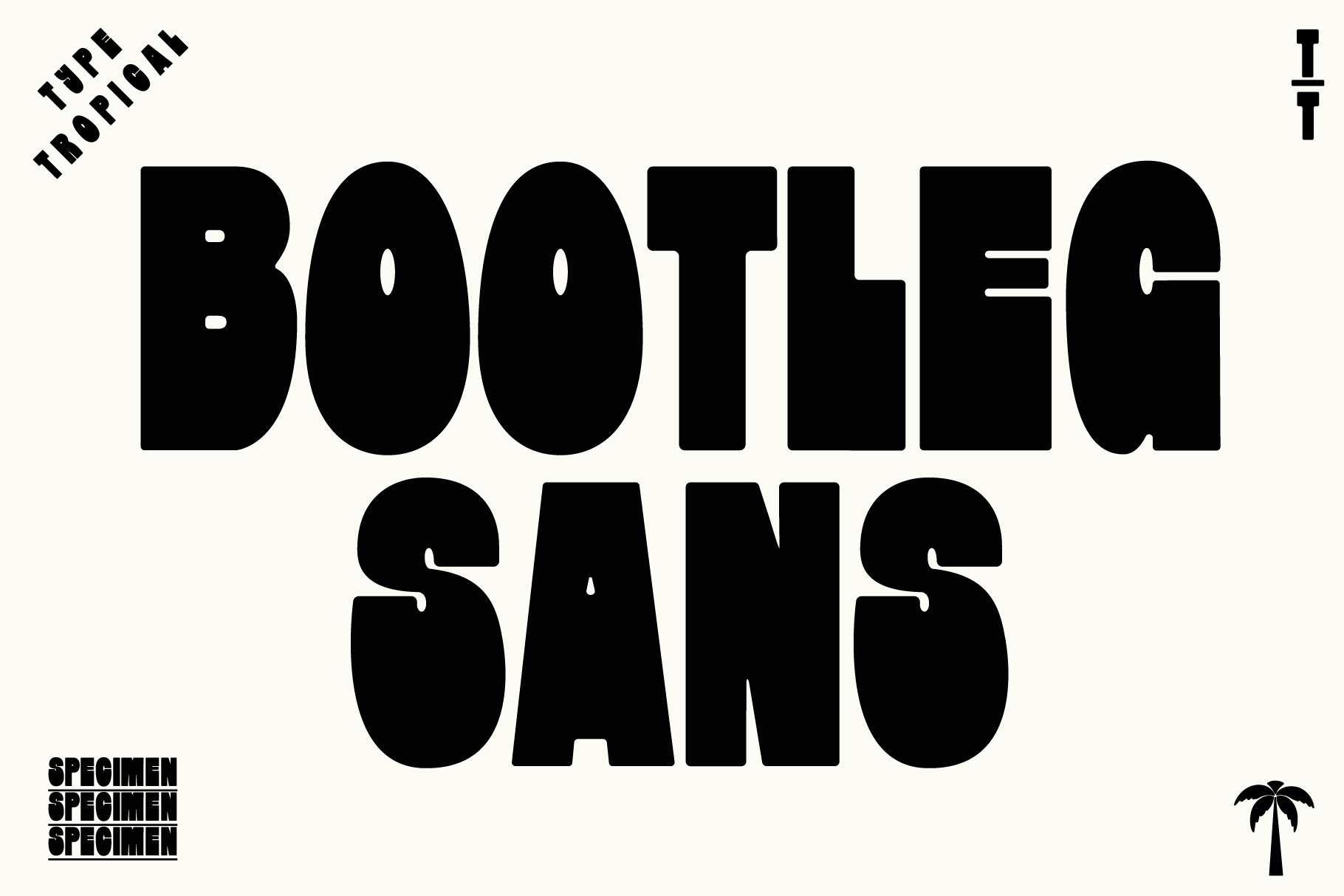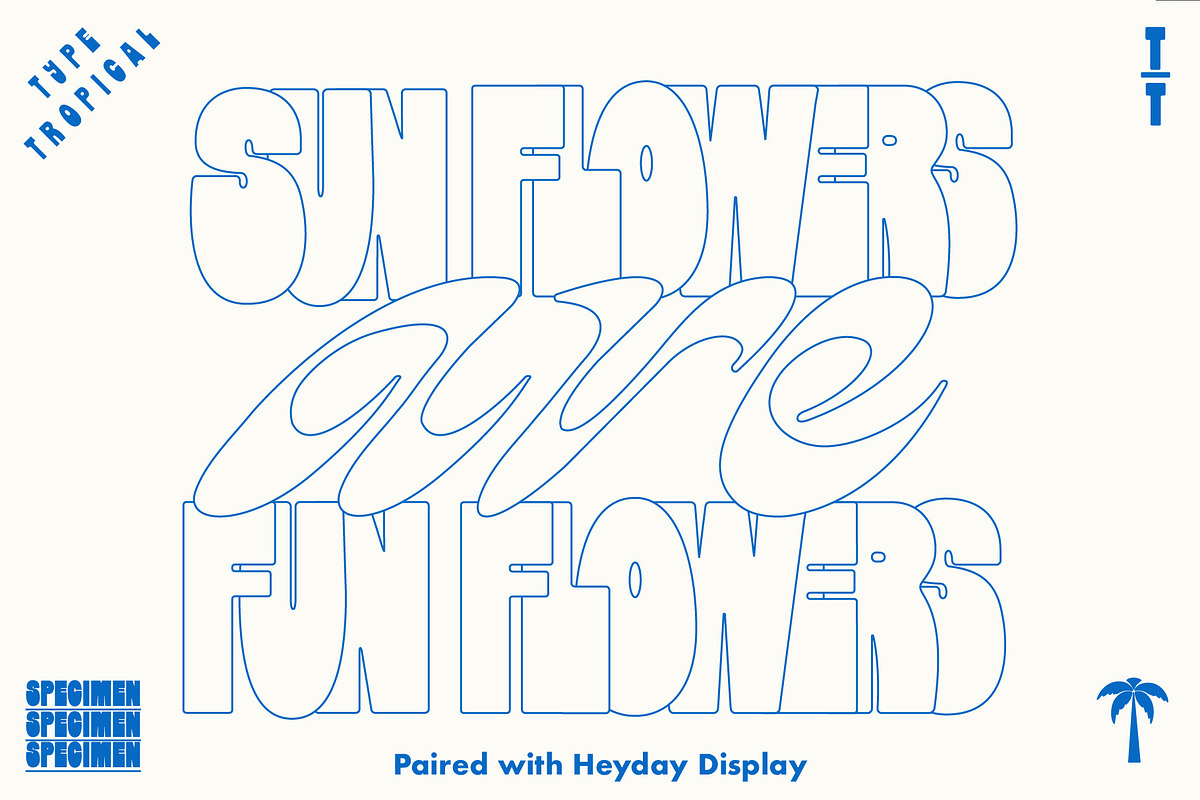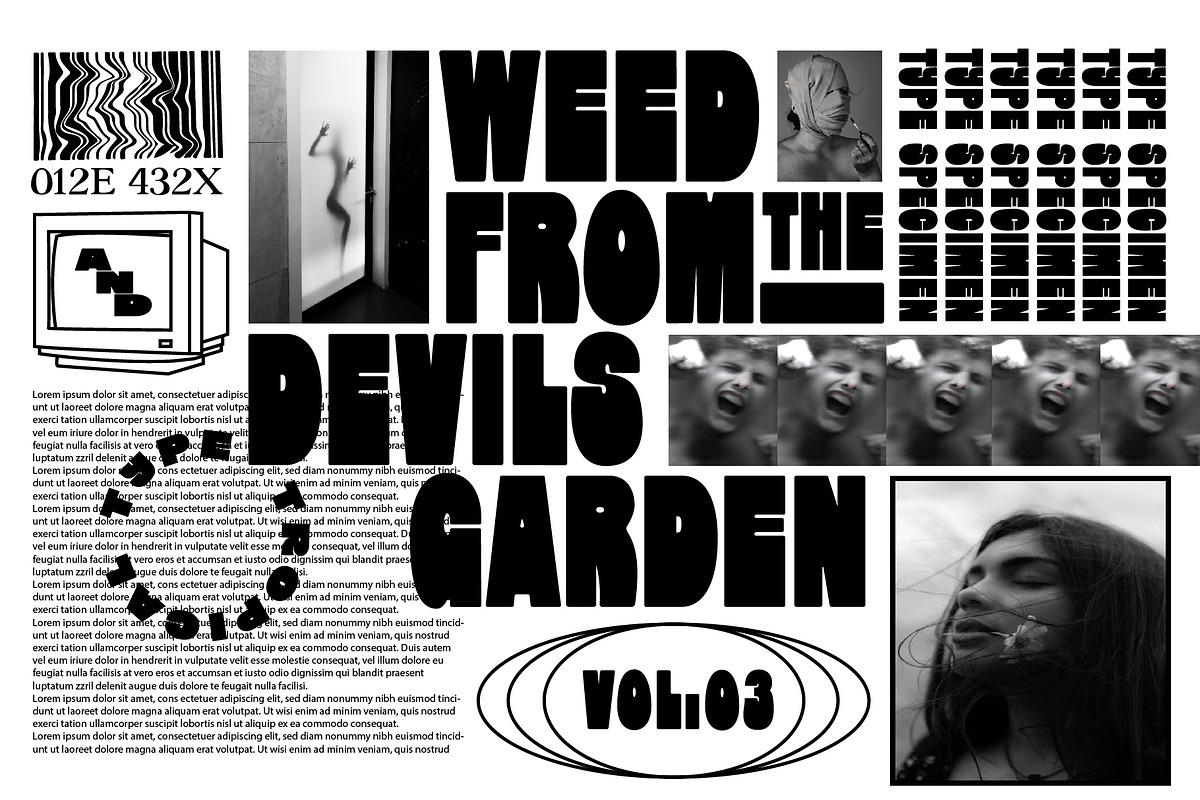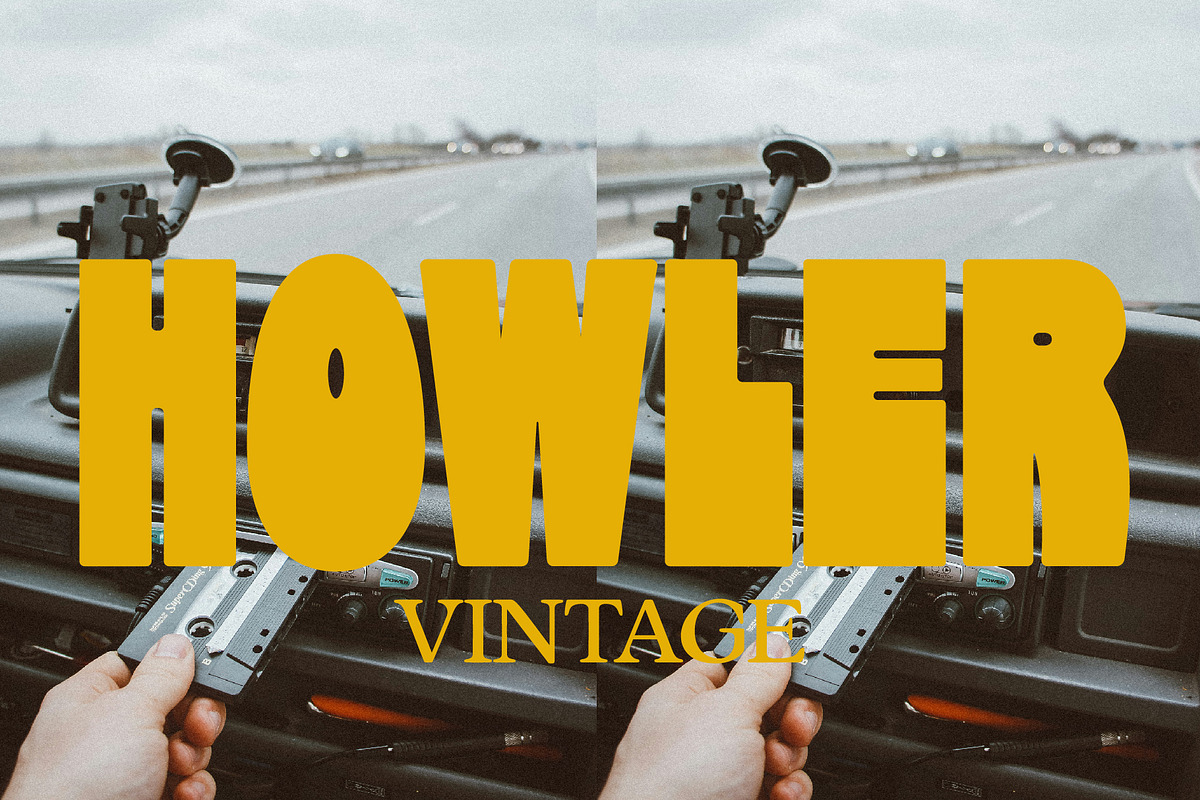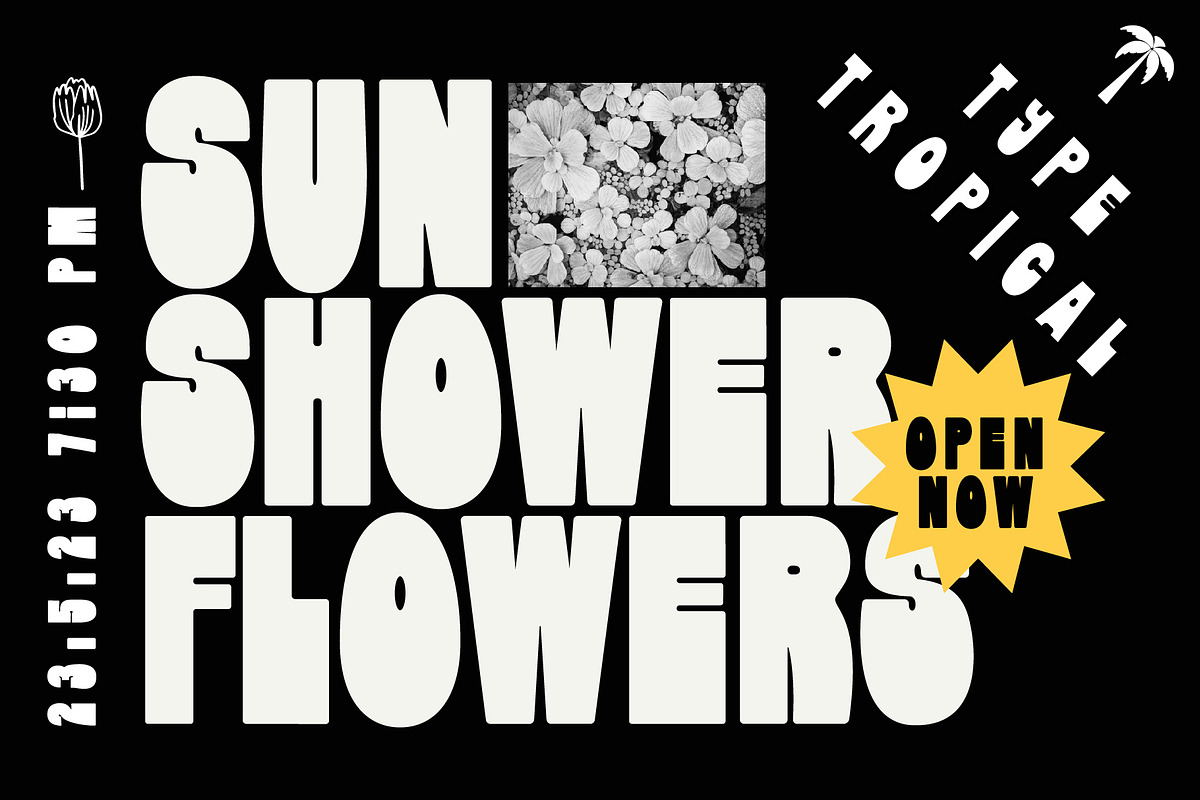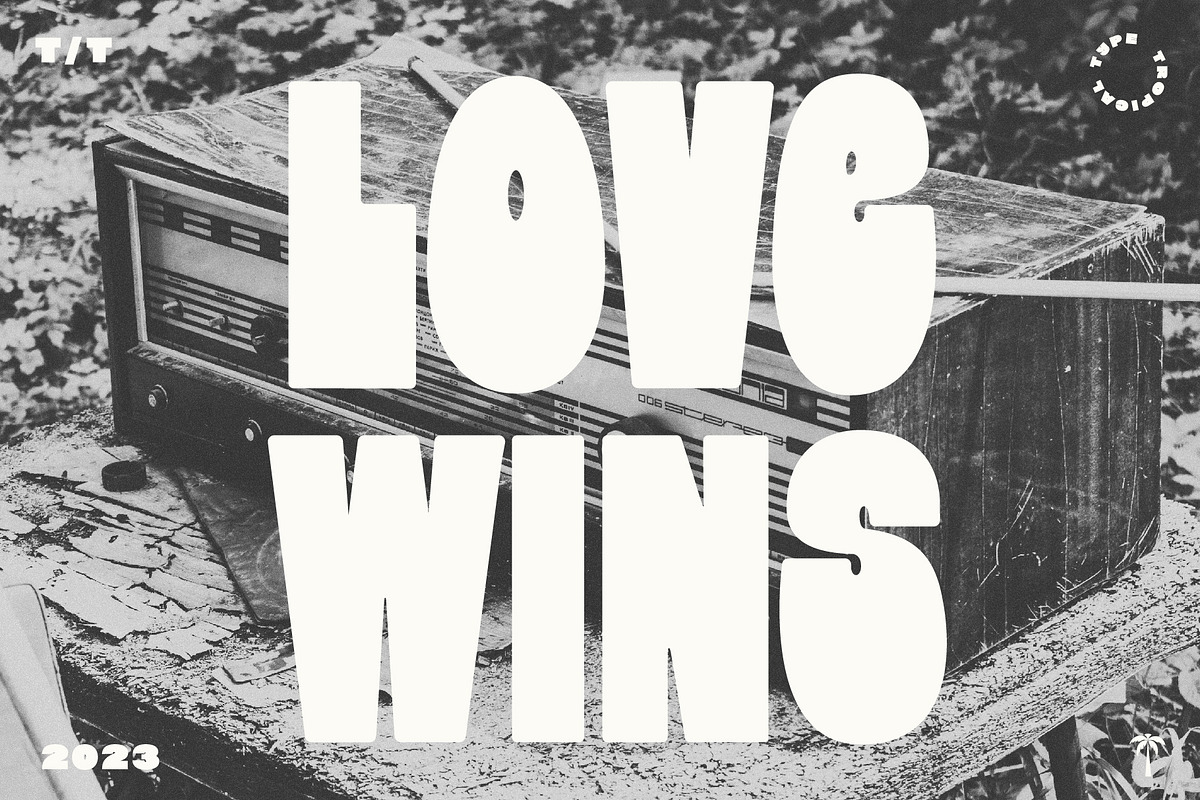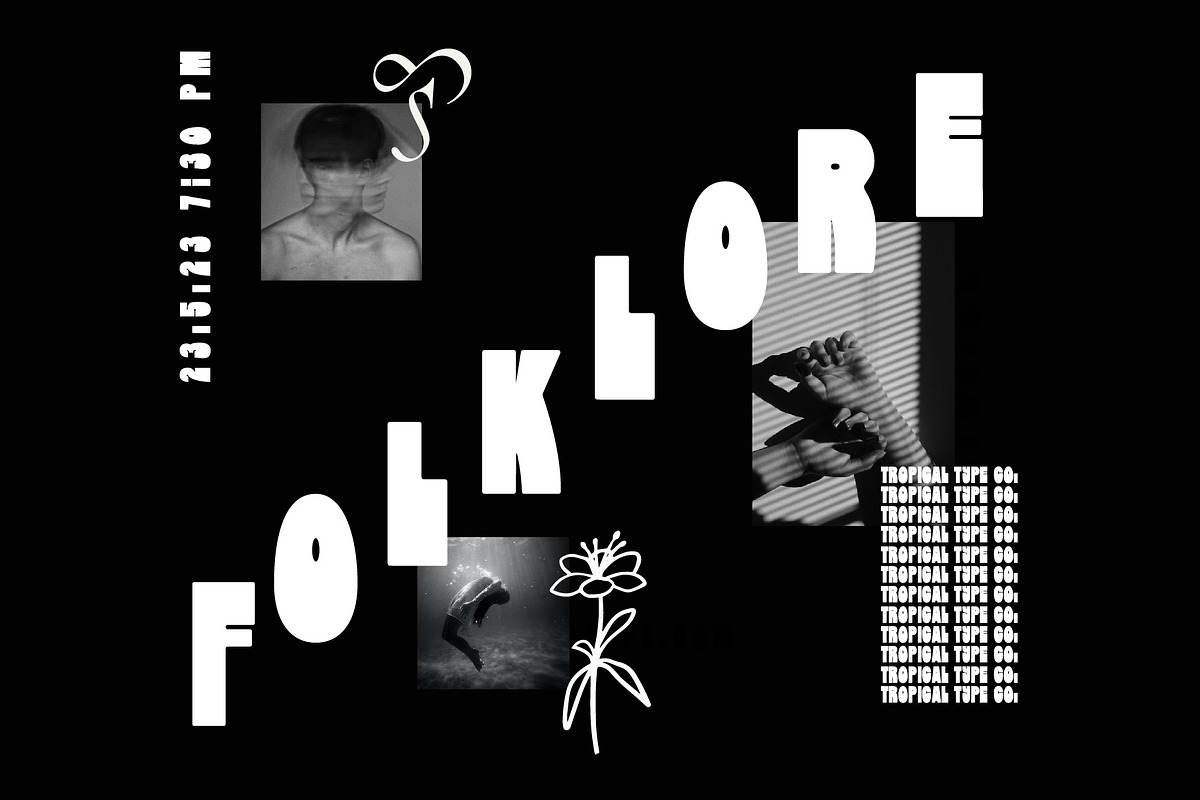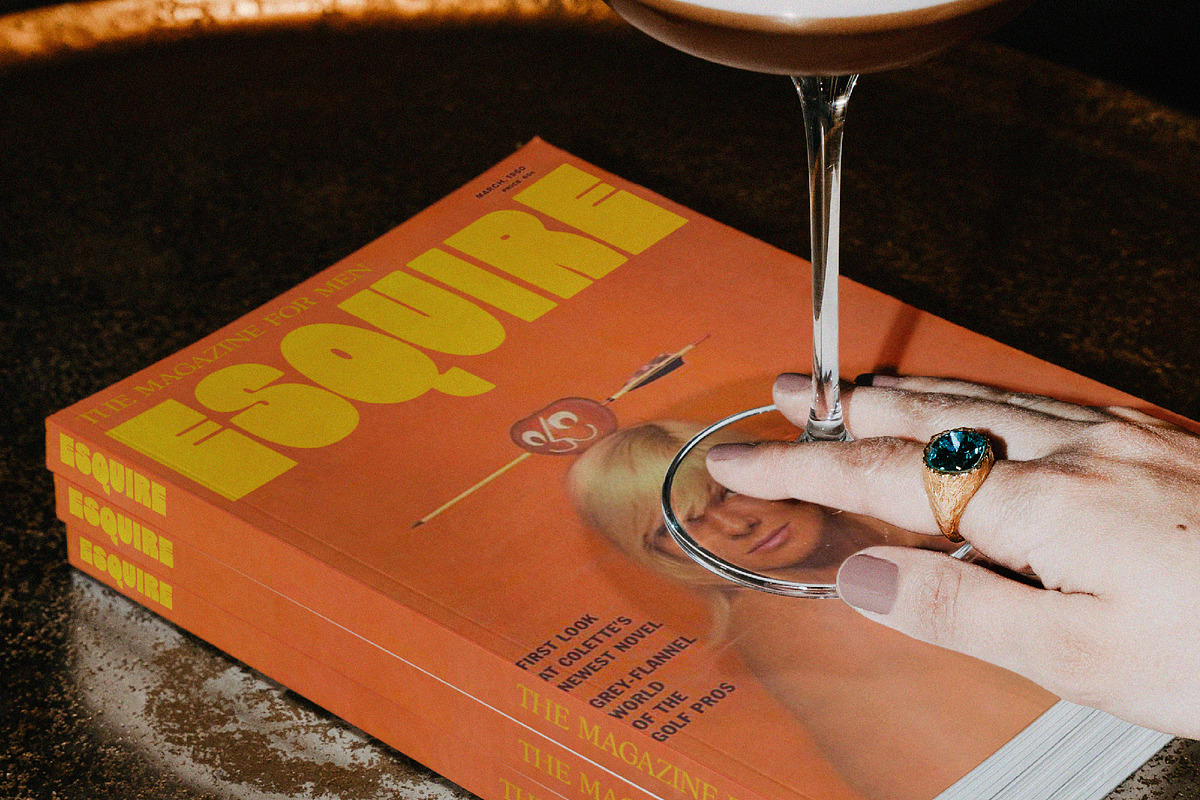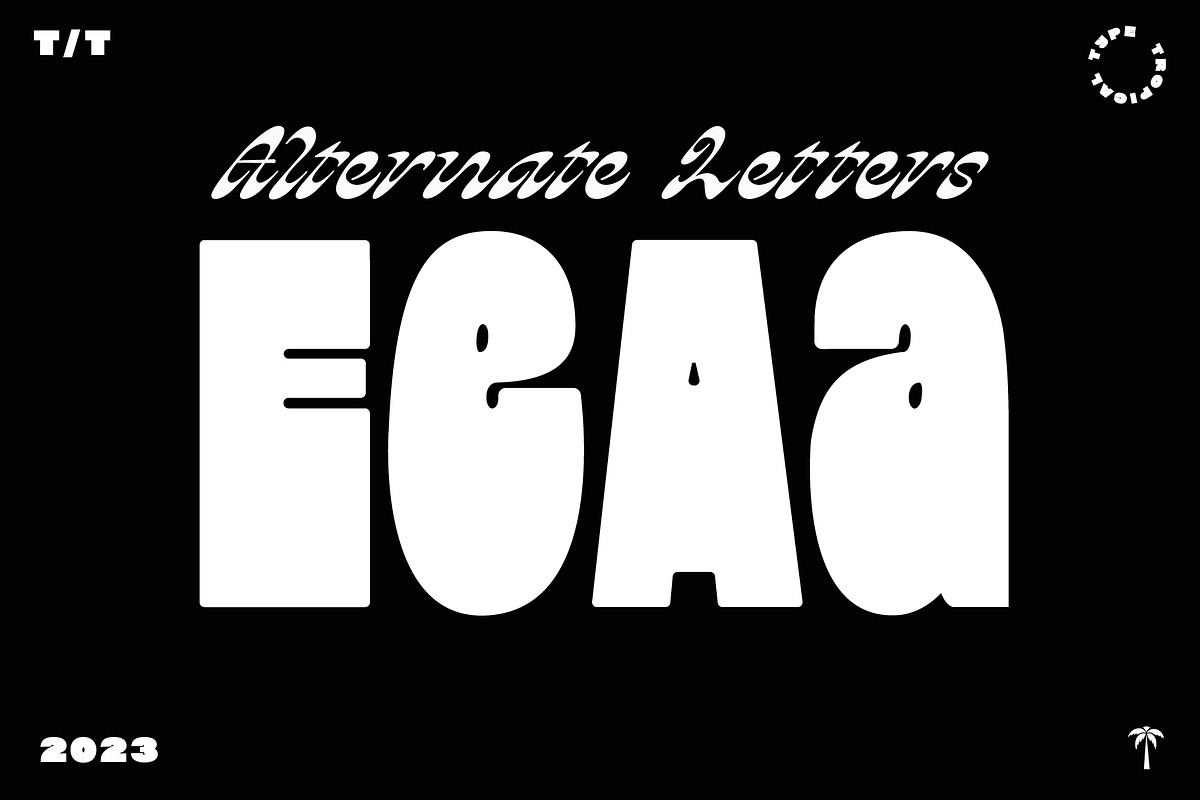
Bootleg Sans - Retro font
Bootleg Sans. Another retro font from Tropical Type. Who would have thought? I can't help it. They're too much fun. So if you want something fun, something retro, something sixties-esque, then this could be for you. All caps with some alternates!